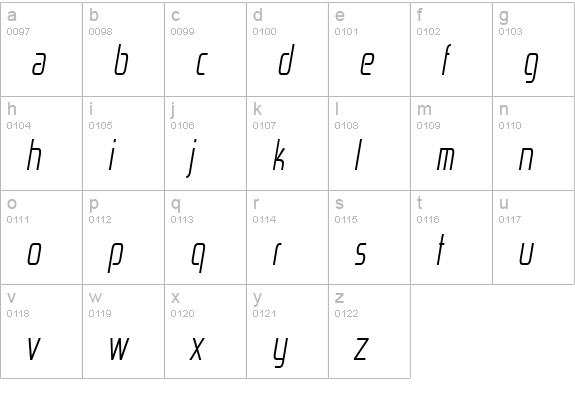
Zekton CdLt Italic Font Details
Zekton CdLt Italic is a distinctive, italic variant in the Zekton typeface family \xE2\x80\x94 well suited to design and typography projects.
Zekton CdLt Italic is a sleek and modern font with a stylish twist. Its italicized design adds a touch of sophistication to any project, making it perfect for creating eye-catching designs that stand out. This versatile typeface is suitable for a wide range of applications, from logos and branding to headlines and body text. The best part is that Zekton CdLt Italic is available for free download at FontsMarket.com. This means you can easily access this high-quality font without any cost, making it a valuable addition to your font collection. Don't miss out on the opportunity to enhance your designs with this elegant and unique typeface. Download Zekton CdLt Italic today and elevate your creative projects to the next level.